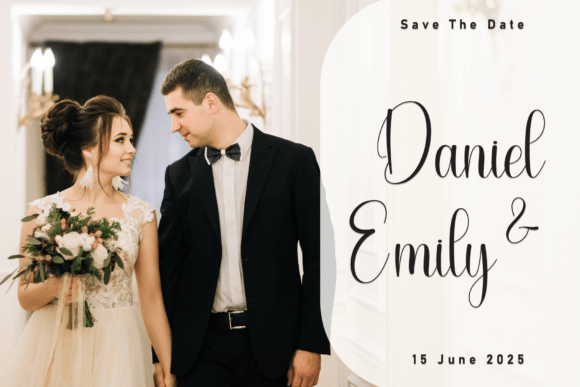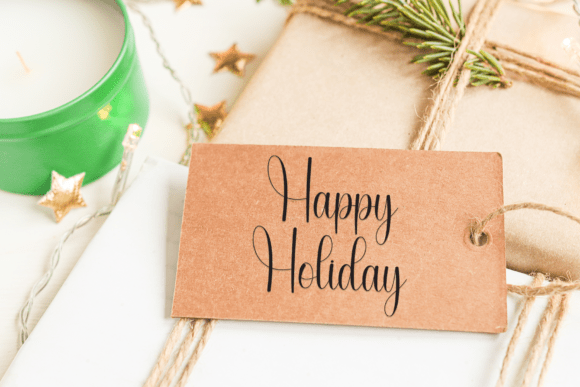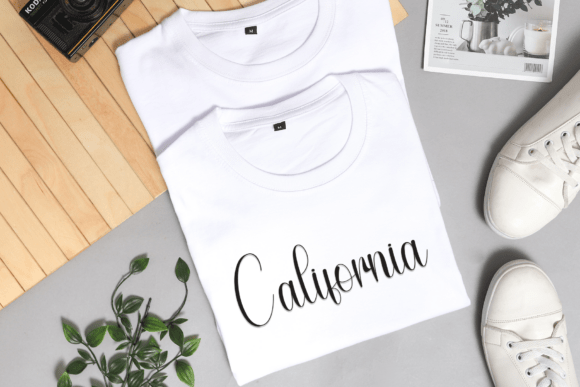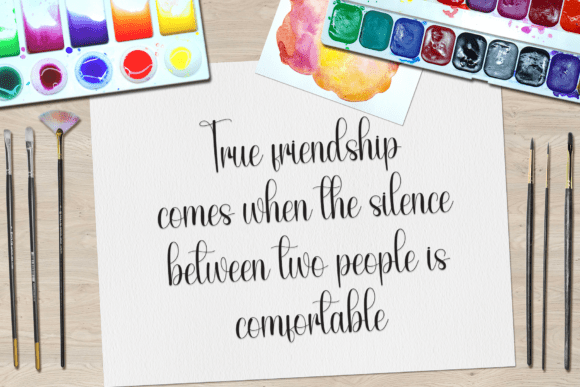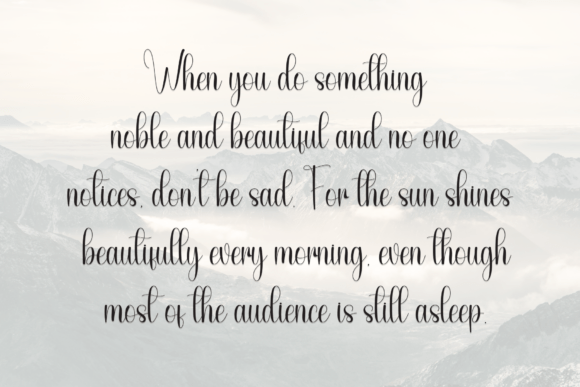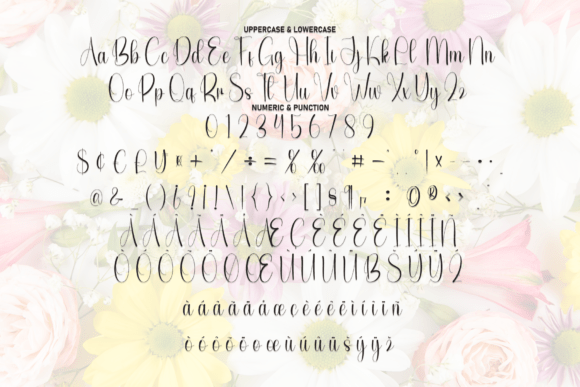
Introducing Aghata: The Delightfully Genuine Handwritten Font
In the world of typography, a good font can make all the difference in elevating your creative project from ordinary to extraordinary. For designers and crafters looking for a unique and playful touch, Aghata font is here to inject a sprightly vibe into your work. This charming and genuine handwritten font is meticulously crafted to bring a whimsical twist to your designs, making it perfect for wedding invitations, bespoke cards, and any project seeking a personal touch.
The Charm of Aghata Font
Aghata font boasts an amiable and casual aesthetic that allows you to infuse a touch of fun into your designs. Its natural charm and cheerful nuances make it an ideal choice for creating appealing visuals that are sure to stand out. Whether you’re a designer looking to add a personal touch to your client’s projects or a crafter seeking to create unique and eye-catching materials, Aghata font is the perfect finishing touch.
Key Features of Aghata Font
• Delightfully genuine handwritten style: Aghata font features a unique and authentic handwritten style that adds a personal touch to your designs.
• Charming and playful vibe: This font is designed to bring a sprightly vibe to your projects, making it perfect for wedding invitations, bespoke cards, and other creative endeavors.
• Amiable and casual aesthetic: Aghata font’s friendly and approachable style makes it easy to incorporate into a wide range of design projects.
• Whimsical twist: This font’s playful nuances add a touch of whimsy to your designs, making them stand out from the crowd.
Uses for Aghata Font
Aghata font is versatile and can be used in a variety of creative projects, including:
• Wedding invitations: Add a personal touch to your wedding stationery with Aghata font’s charming and playful style.
• Bespoke cards: Create unique and eye-catching greeting cards for special occasions.
• Design projects: Incorporate Aghata font into your design projects to add a touch of whimsy and personality.
• Crafting projects: Use Aghata font to add a personal touch to your crafting projects, such as scrapbooking and DIY paper crafts.
Tips for Using Aghata Font
To get the most out of Aghata font, here are a few tips to keep in mind:
• Experiment with different sizes and colors: Aghata font looks great in a variety of sizes and colors, so don’t be afraid to experiment and find the perfect combination for your project.
• Pair with other fonts: Aghata font pairs well with other fonts, so try combining it with a serif or sans-serif font to create a unique and interesting contrast.
• Use it sparingly: While Aghata font is playful and whimsical, it can be overwhelming if used too much. Use it sparingly to add a touch of personality to your designs.
In conclusion, Aghata font is a delightfully genuine handwritten font that is sure to bring a sprightly vibe to your creative projects. Its charming and playful style makes it perfect for wedding invitations, bespoke cards, and any design seeking a whimsical twist. With its amiable and casual aesthetic, Aghata font is an ideal choice for designers and crafters looking to add a personal touch to their work. So why not dive into the world of Aghata font and level up your design game with its natural charm and cheerful nuances?